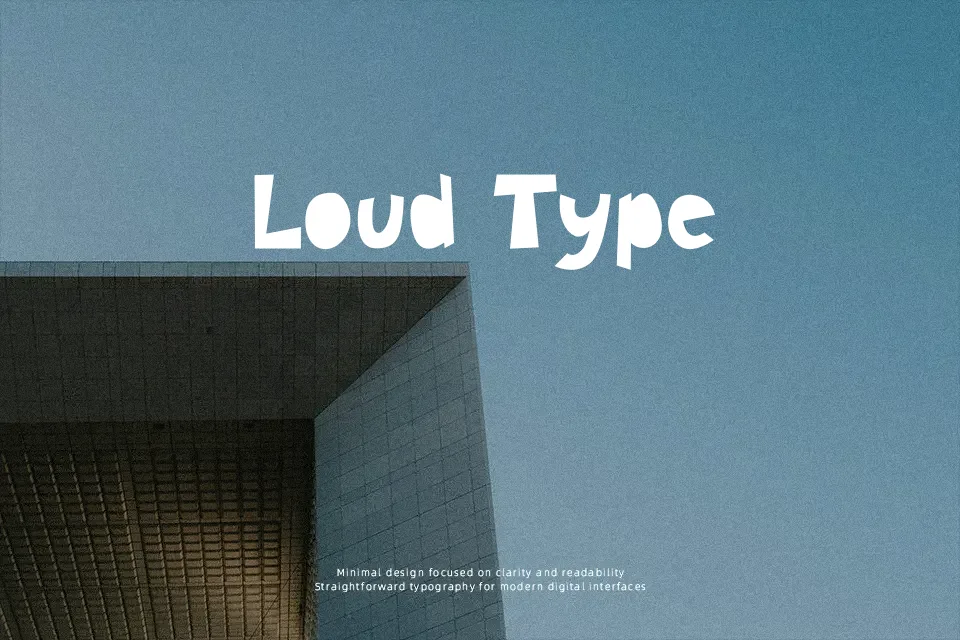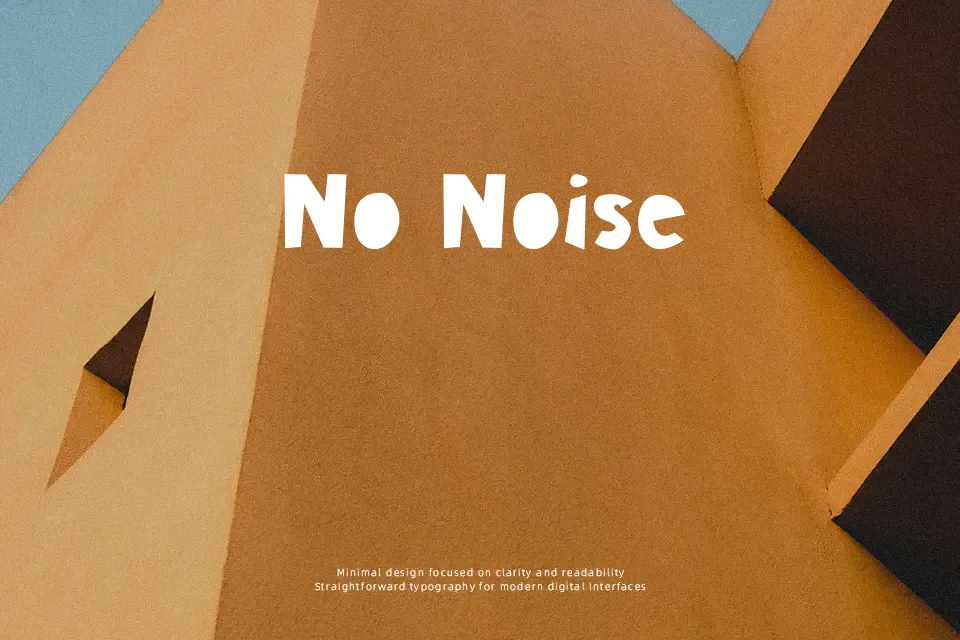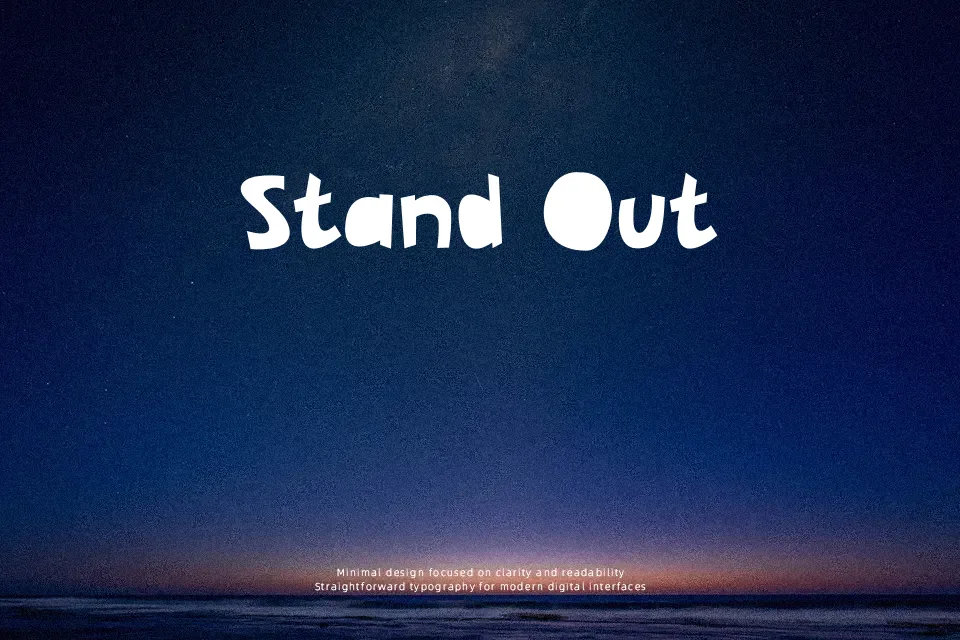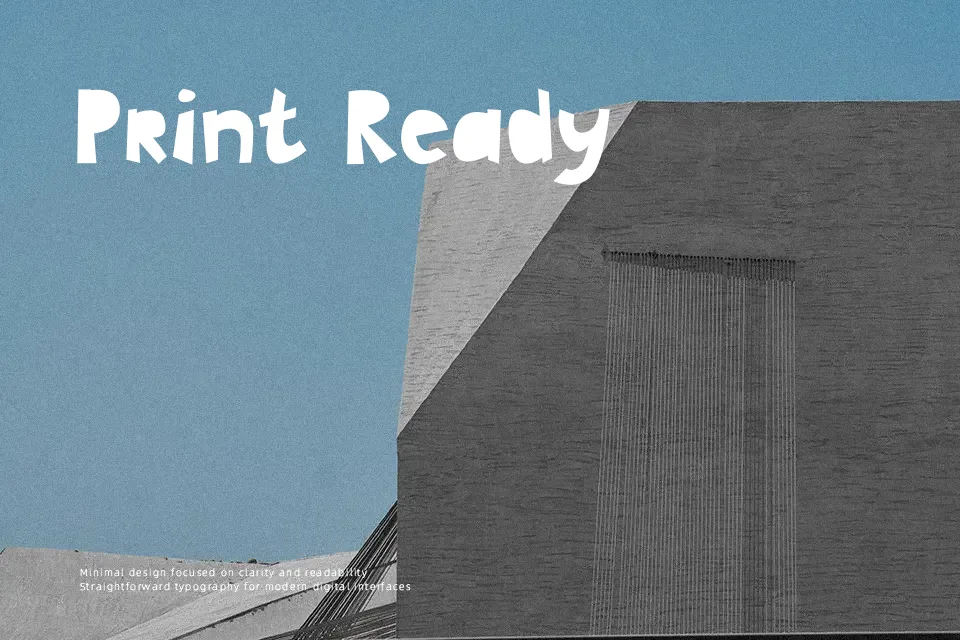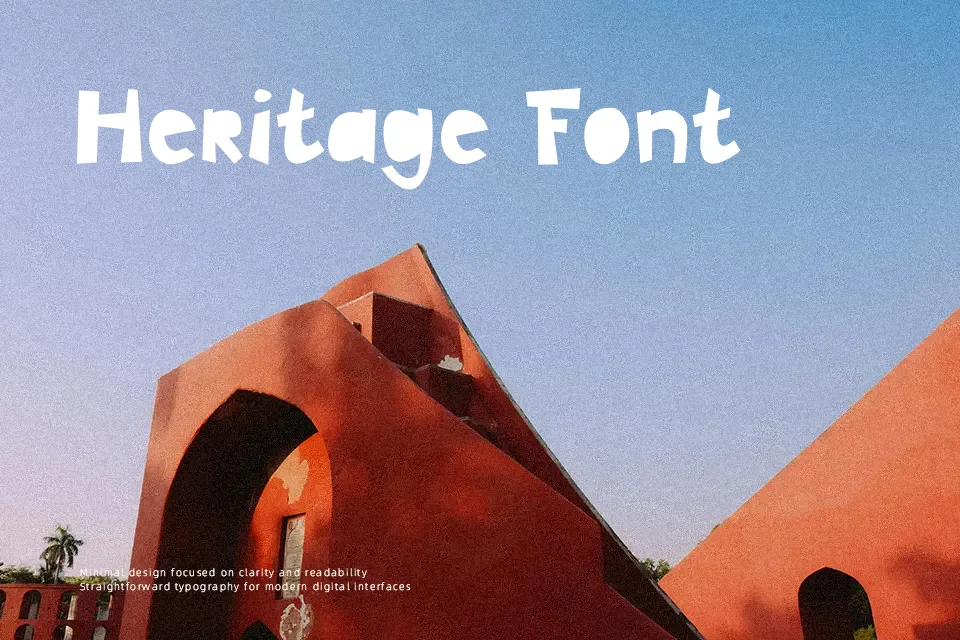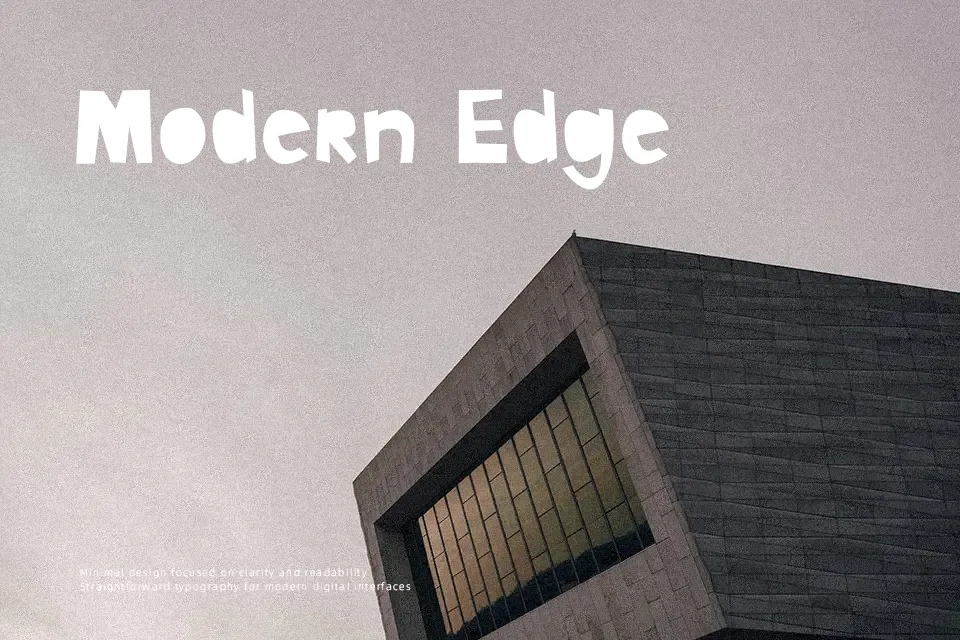
Ugly Cut Font
Ugly Cut Font introduces an unconventional aesthetic defined by angular shears, sturdy stems, and deliberate asymmetries reminiscent of hand-clipped paper collage. The letterforms display noticeable variations in stroke thickness alongside condensed proportions, supported by balanced spacing that keeps neighboring glyphs completely distinct. This graphic treatment performs effectively across large poster headlines, craft merchandise labels, apparel graphics, and creative branding projects. However, continuous reading environments expose clear functional limitations, as the irregular silhouettes and dense weights disrupt visual cadence across lengthy paragraphs. In focused display roles, the design establishes an energetic focal point without sacrificing overall legibility.
Best For: children’s book covers, craft merchandise packaging, event poster headlines, apparel graphics
Not Ideal For: long paragraph text, dense editorial layouts, mobile interface labels, corporate reports
Perfect for branding, headline, and kids, with a bold and cartoon style.